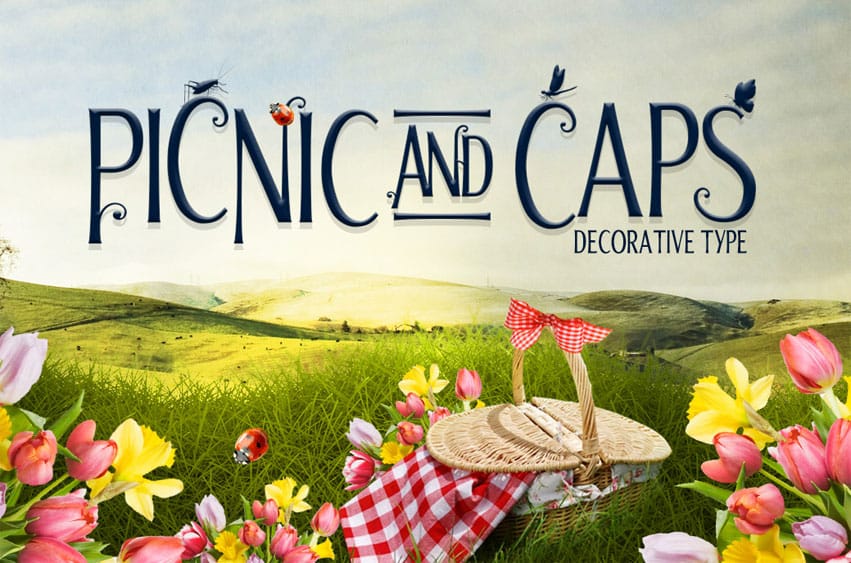
Picnic Caps Font is a beautiful decorative font that is created for truly creative design. Every letter in this beautiful font has been crafted with lots of attention to detail, which ensures a unique experience. The Picnic and Caps font contains:
Capital Letters
Alternative Caps
Decorative Glyphs